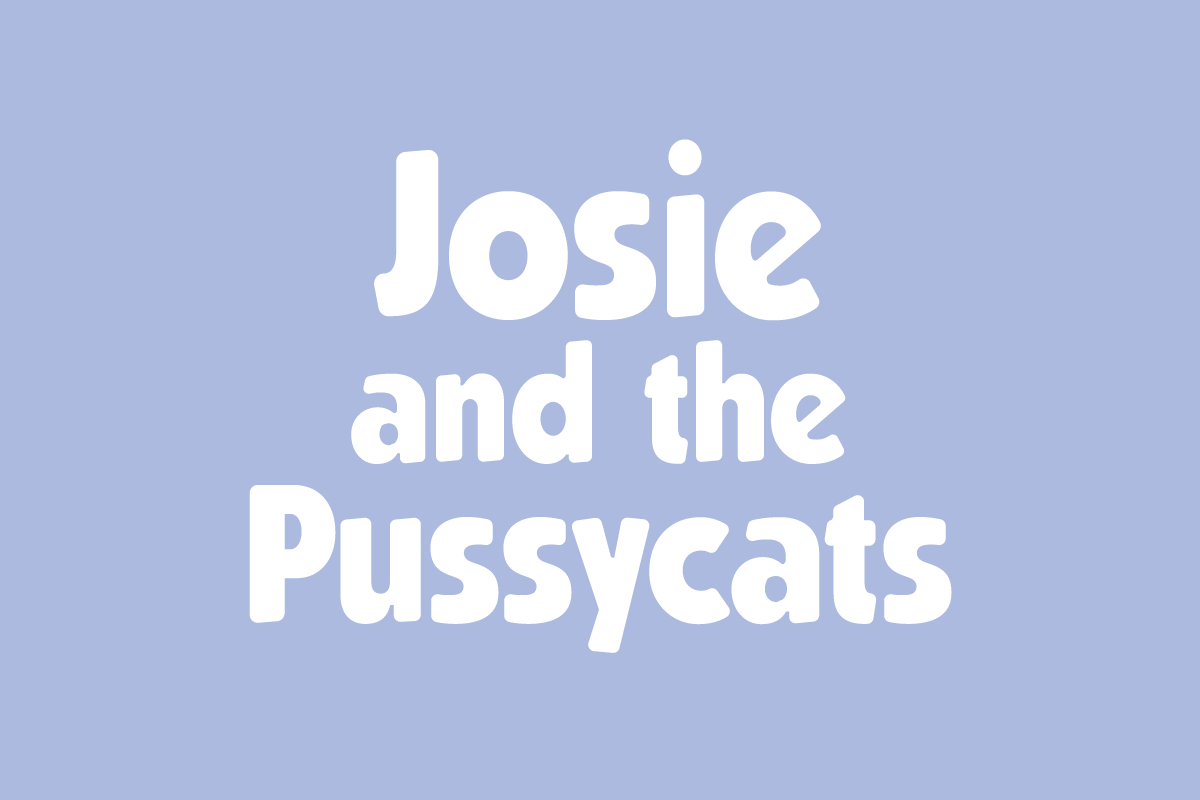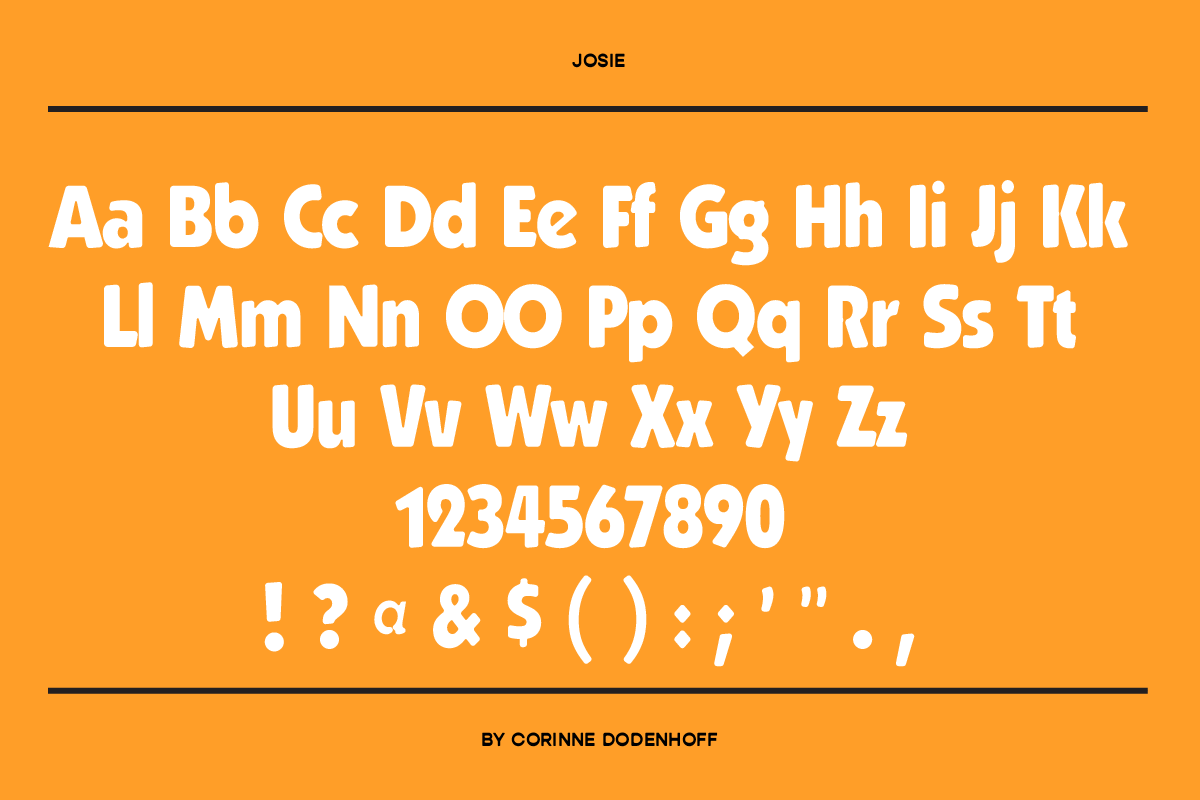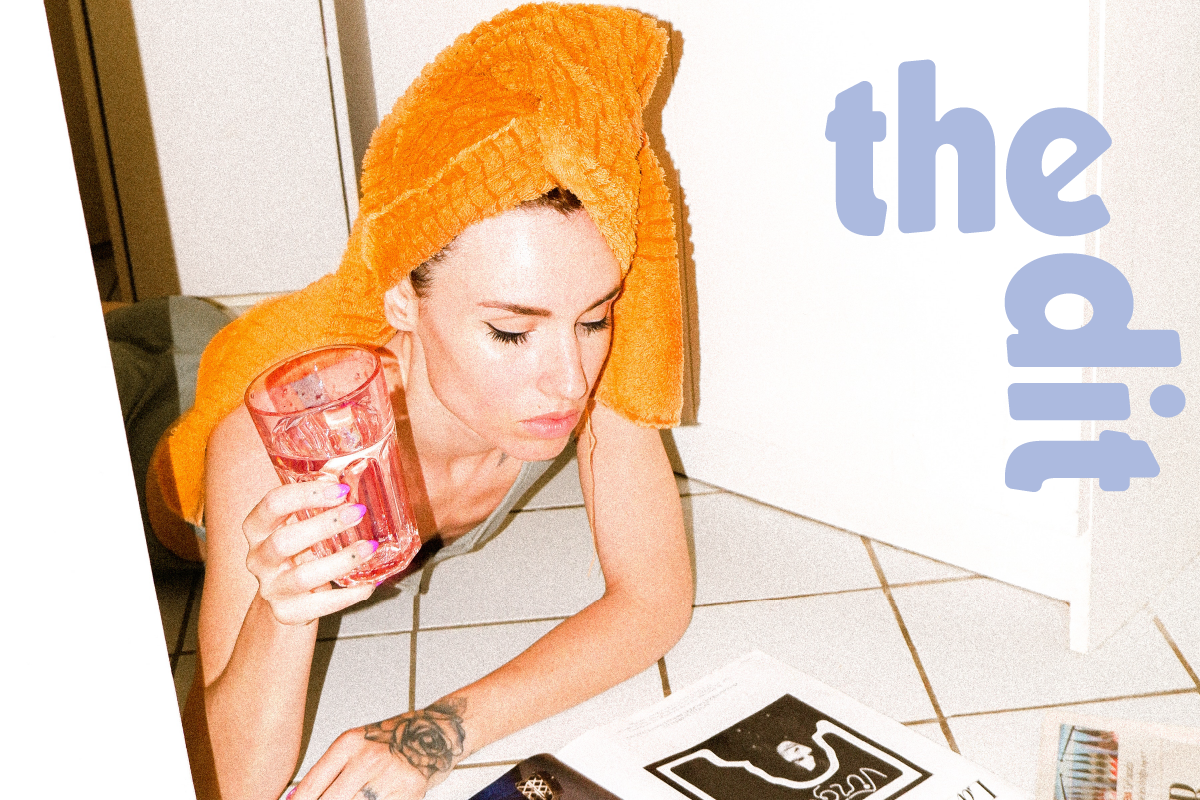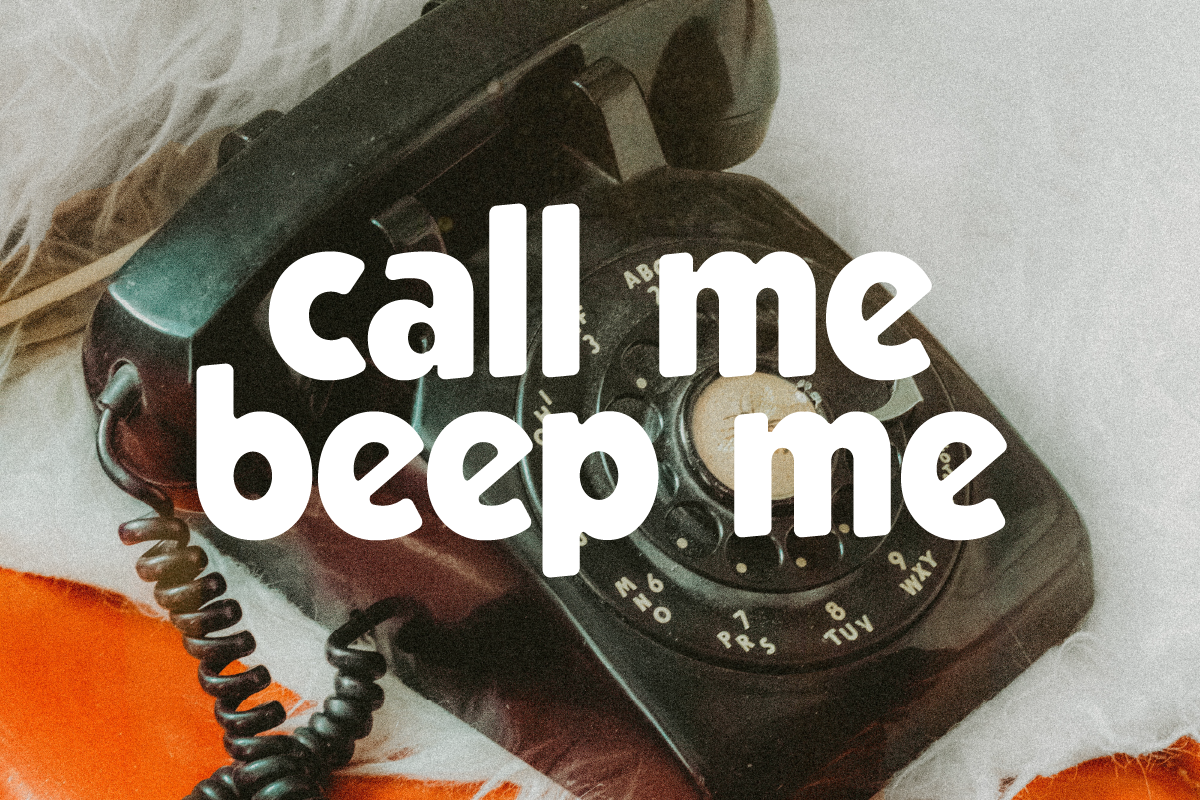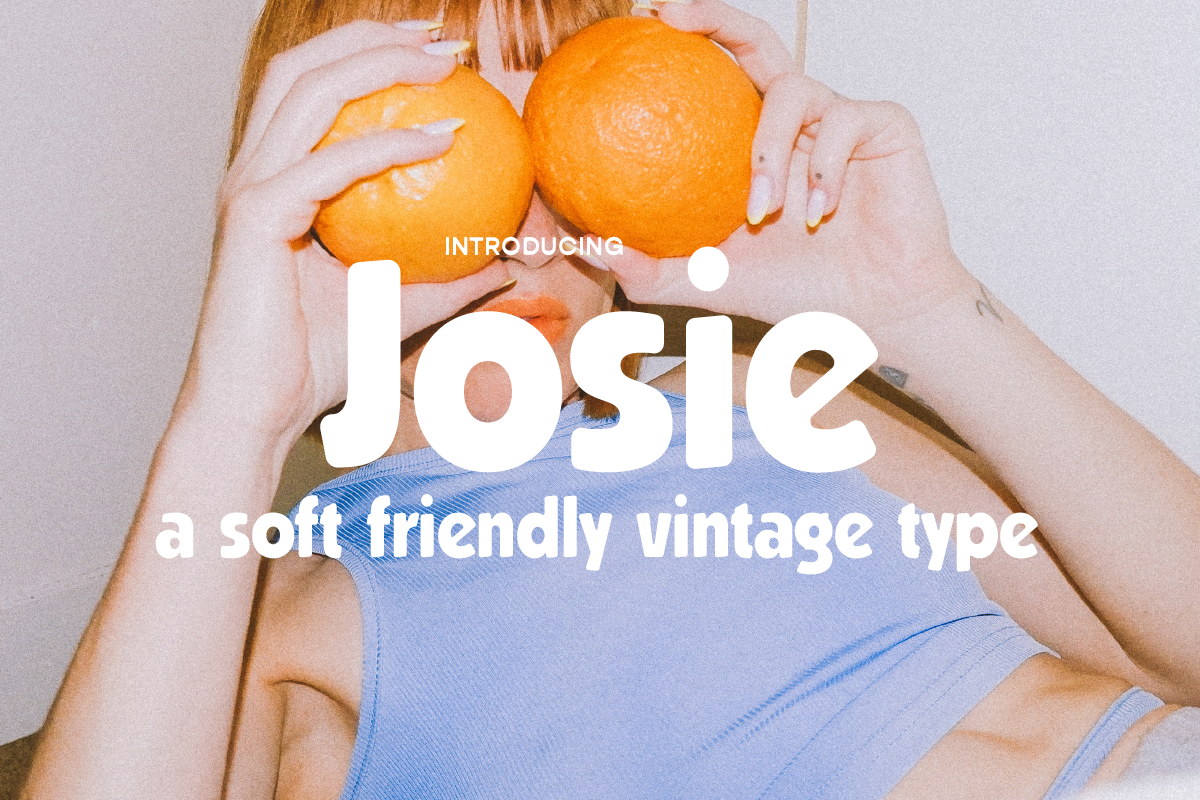
Josie: A Soft Friendly Retro Font
Like a phone call from your bestie, Josie is a soft, friendly, slightly offbeat vibe. Emulated after strong sans serifs from the 80's and 90's, Josie is a perfect touch when you need an approachable but professional and clean look.